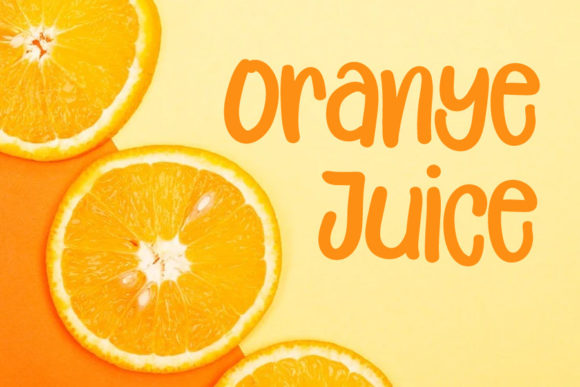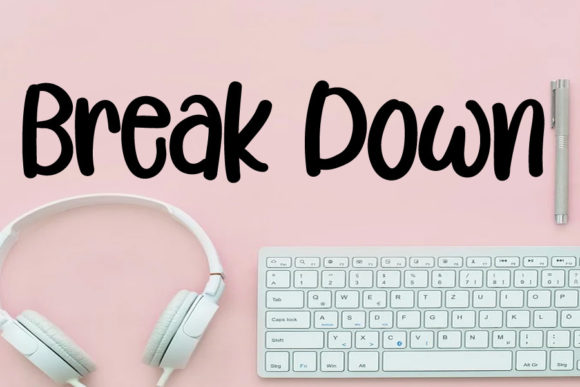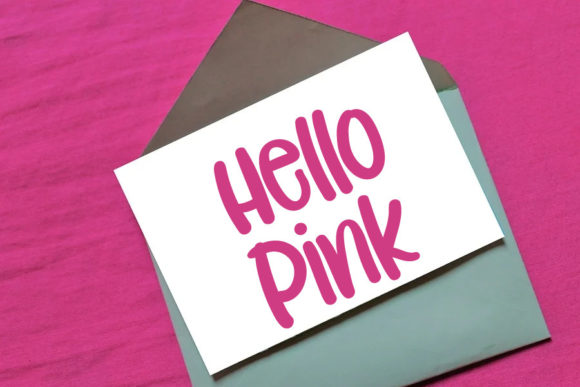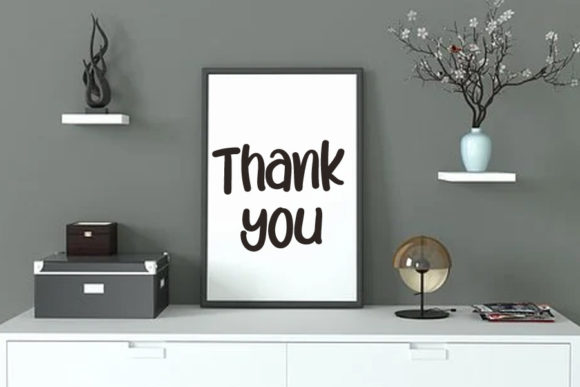
Simplings Font
About Simplings Font
“Simplings” is characterized as a fresh and beautiful font with versatile applications suitable for a range of design purposes. Its simplicity and uniqueness make it an excellent choice for various projects, including Youtube banners, cover logo mockups, wedding invitations, ID cards, flyers, and crafts. The font is presented as a tool that can contribute to the progress and development of businesses, emphasizing its simplicity and uniqueness.
The fresh and beautiful design of “Simplings” positions it as a contemporary and visually appealing font, making it well-suited for modern design trends. In contexts like Youtube banners and cover logo mockups, where catching the viewer’s eye is essential, the font’s fresh and beautiful qualities can contribute to an engaging and on-trend visual presentation.
For wedding invitations, the font’s simplicity and uniqueness are highlighted, suggesting that it can add a special touch to these important materials. Its adaptability to different design themes makes it a versatile option for couples seeking personalized and elegant wedding stationery.
In the realm of ID cards and flyers, the font’s simplicity becomes a practical asset, ensuring clear communication of information. Meanwhile, its unique characteristics contribute to the overall visual appeal, creating a distinctive look for business materials.
Craft projects benefit from the simplicity and uniqueness of “Simplings,” as these qualities can add a creative touch to handmade creations. The font’s suitability for crafts aligns with its potential to enhance various design projects.
The claim that using this font will lead to business progress and development suggests that “Simplings” is not merely a visual choice but a strategic design element. Its ability to convey a sense of freshness, beauty, simplicity, and uniqueness aligns with the idea that visual appeal can positively impact a business’s growth and development.
In summary, “Simplings” is presented as a versatile font that addresses diverse design needs. Its fresh and beautiful qualities, combined with simplicity and uniqueness, position it as a valuable asset for businesses and creative projects, contributing to progress and development in visual communication.